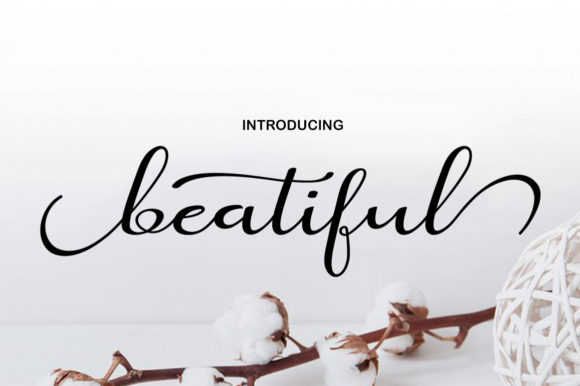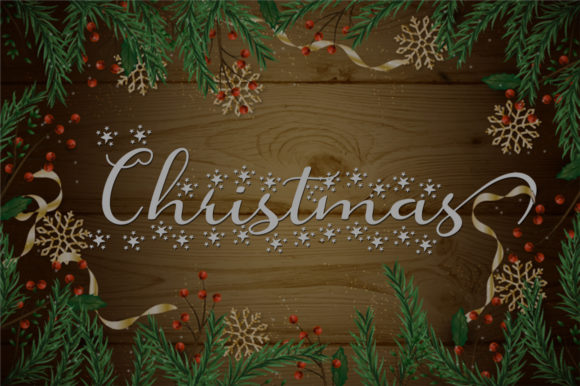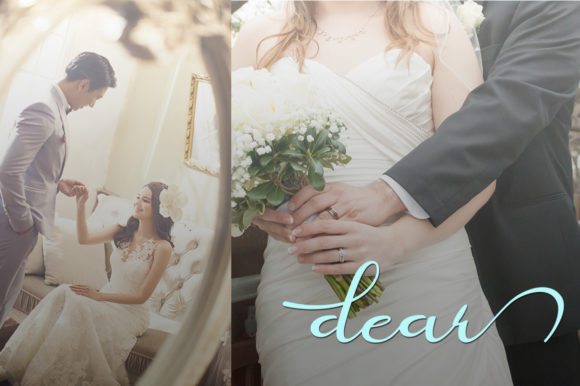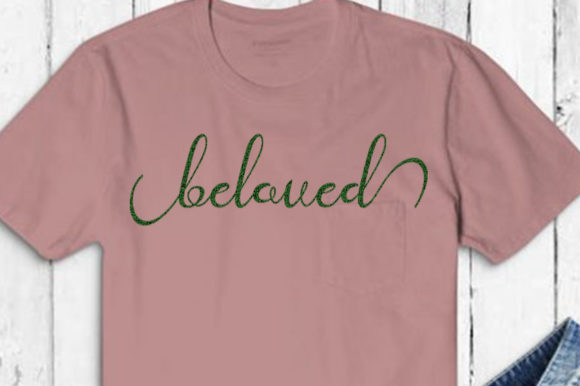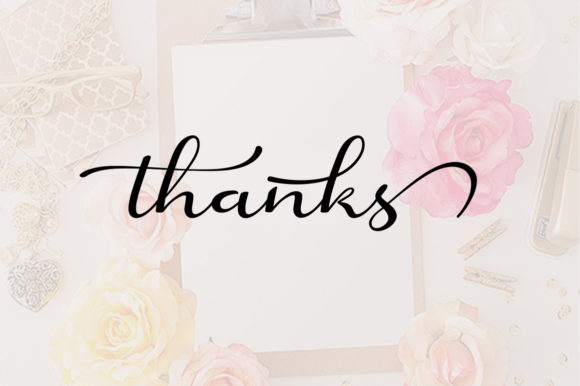
Beatiful Font
About Beatiful Font
The Beatiful is a fresh and modern script font. Its decorative characters and dancing linage give it an elegant feel, which can be used to create luxurious designs.